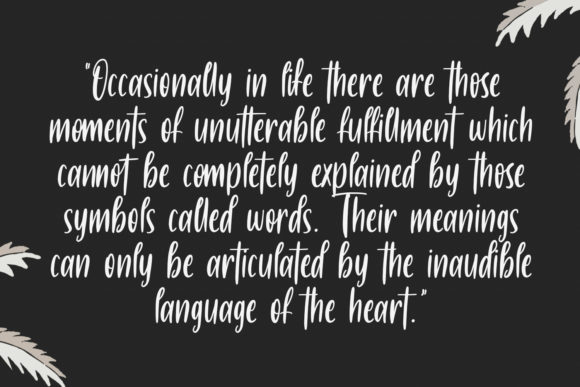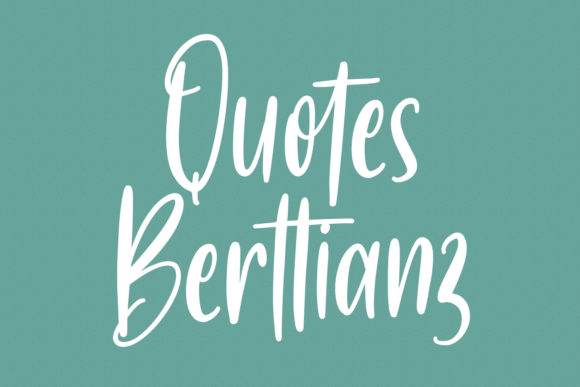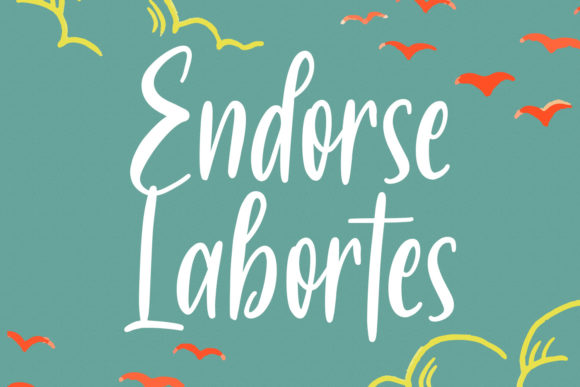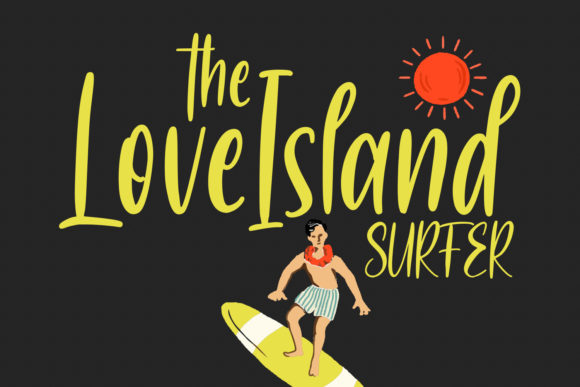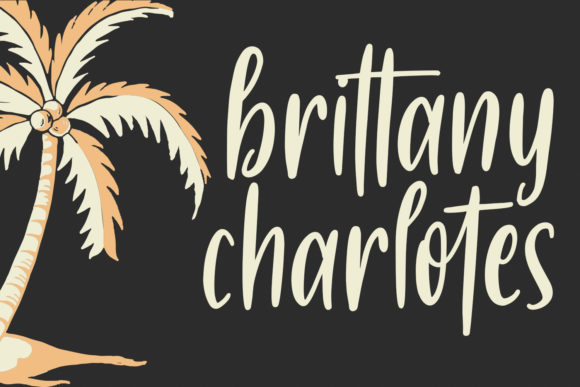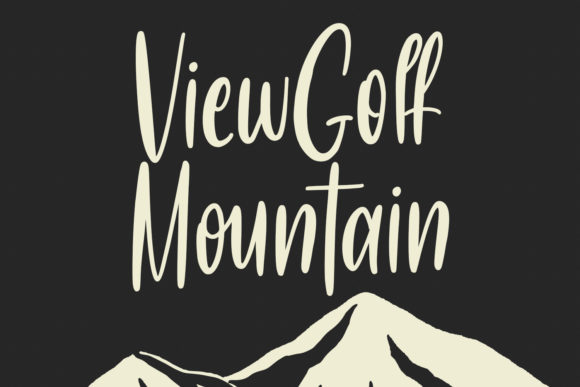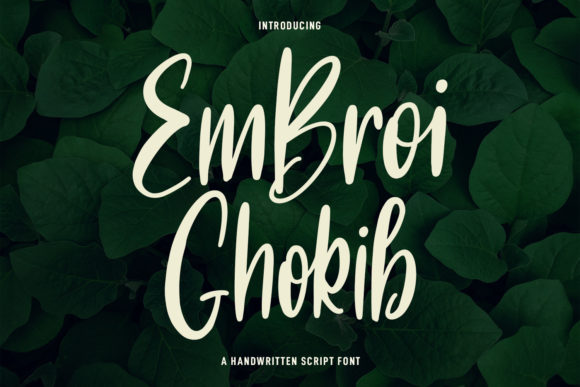
Introducing Embroi Ghokib Font: Elevate Your Designs with Elegance and Flair
In the world of typography, fonts play a pivotal role in conveying messages, evoking emotions, and adding personality to designs. For designers and crafters seeking a unique and stylish script font, Embroi Ghokib emerges as an exceptional choice. This fancy script font is not just a typeface; it’s an artistic statement that can transform your projects with its medium contrast strokes, fun characters, ligatures, and alternates. Let’s dive deeper into what makes Embroi Ghokib a standout addition to your typographic arsenal.
Clean and Contemporary Design
Embroi Ghokib boasts a very clean and contemporary design, making it perfect for projects that demand a modern aesthetic. The shape of each character is meticulously crafted to ensure clarity and elegance, allowing your designs to exude a sense of sophistication. Whether you’re working on branding, packaging, or digital content, Embroi Ghokib’s sleek appearance ensures your message is conveyed with style and poise.
Medium Contrast Strokes for Versatility
One of the defining features of Embroi Ghokib is its medium contrast strokes. This characteristic lends the font a versatile charm, suitable for a wide array of design applications. The contrast adds depth and dynamism to the text, making it more engaging and visually appealing. This versatility is particularly beneficial for designers who need a font that can adapt to different contexts and still make a lasting impression.
Fun Characters, Ligatures, and Alternates for Creative Freedom
Embroi Ghokib doesn’t just stop at standard characters; it also includes fun characters, ligatures, and alternates. These features provide designers and crafters with a rich playground for creativity. Ligatures offer a natural flow to the text, mimicking handwriting and adding a personal touch to your designs. Alternates provide flexibility, allowing you to customize your text and inject it with personality. This extensive range of typographic elements ensures that your designs stand out and reflect your unique vision.
Applications for Designers and Crafters
The versatility of Embroi Ghokib makes it an excellent choice for a myriad of projects. Designers can use it for:
• Branding and Logotypes: Create memorable brand names and logos with a distinctive touch.
• Invitations and Stationery: Add a touch of elegance and whimsy to wedding invitations, greeting cards, and other stationery.
• Packaging: Elevate product packaging with a sophisticated and eye-catching typography.
• Digital Content: Enhance blogs, social media posts, and website headers with a modern and engaging font.
Crafters, on the other hand, can incorporate Embroi Ghokib into their projects such as:
• Handmade Cards: Personalize your greeting cards with a stylish and unique font.
• DIY Crafts: Add a professional and artistic flair to your craft projects, such as signs, banners, and decorative items.
Embroi Ghokib is more than just a font; it’s a design companion that offers elegance, versatility, and creativity. Its clean and contemporary design, combined with medium contrast strokes, fun characters, ligatures, and alternates, makes it a valuable asset for designers and crafters alike. Whether you’re aiming to create stunning brand identities, beautiful stationery, or captivating digital content, Embroi Ghokib provides the perfect blend of style and functionality. Embrace Embroi Ghokib in your next project and experience the transformative power of typography.